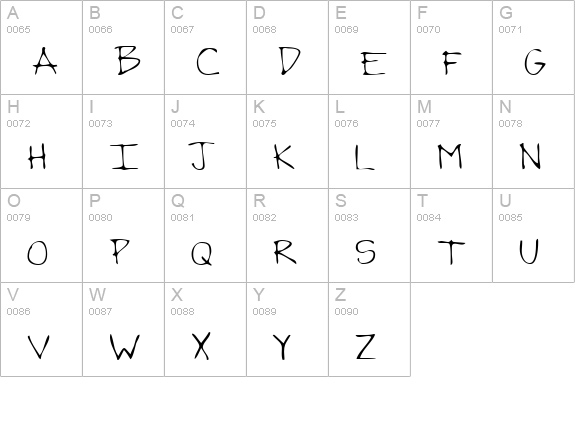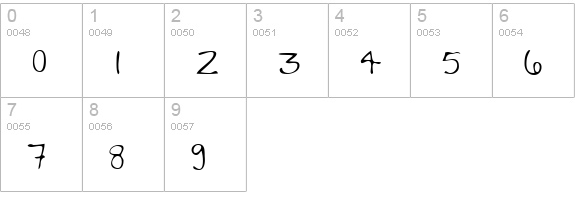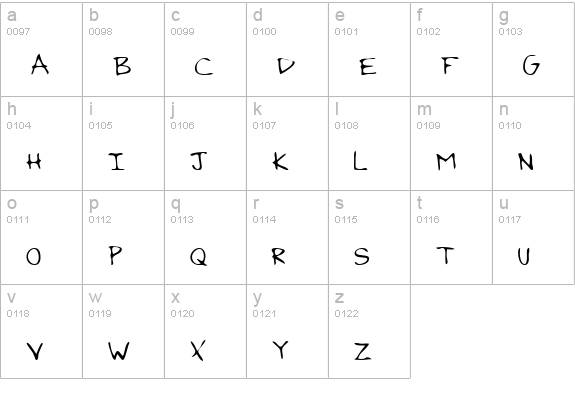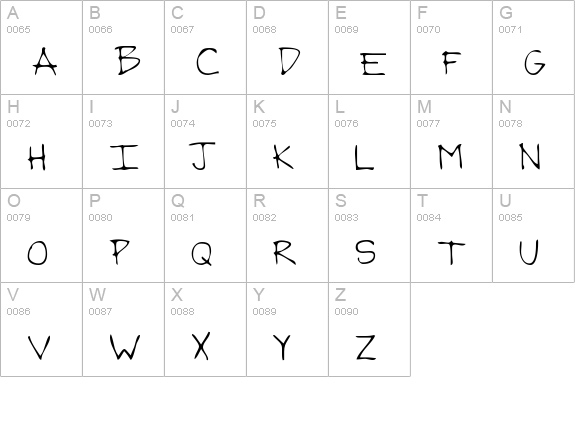
GrantsHand Regular is the standard, neutral variant in the GrantsHand typeface family \xE2\x80\x94 well suited to general body text, paragraphs, and standard typographic work.
GrantsHand Regular font is a charming and versatile typeface that exudes a sense of creativity and elegance. With its smooth lines and stylish curves, this font is perfect for a variety of design projects, from invitations to posters to branding materials. The graceful strokes of GrantsHand Regular font bring a touch of sophistication to any text, making it a popular choice for those looking to add a touch of class to their designs. The best part? GrantsHand Regular font is available for free download at FontsMarket.com. This means that you can easily access this beautiful font and use it in your projects without any cost. Whether you're a designer, a blogger, or a student, GrantsHand Regular font is a fantastic choice for adding a touch of style to your work. Download it today and see how it can elevate your designs to the next level.